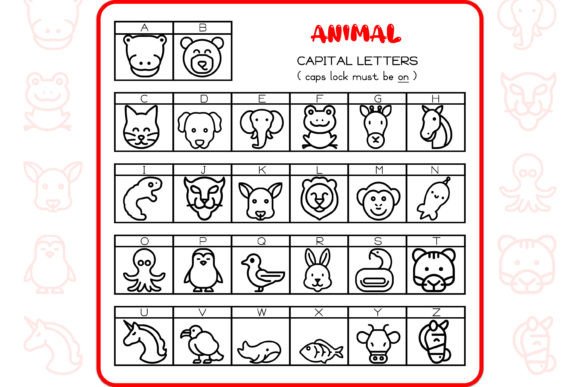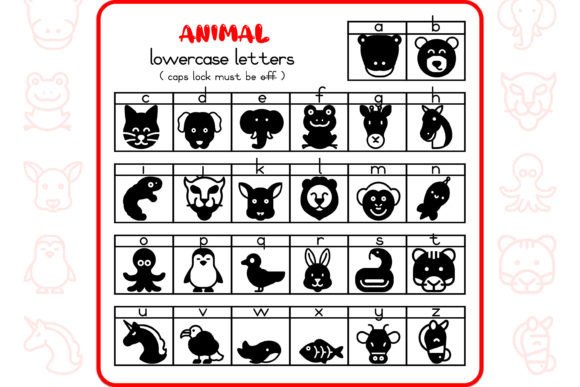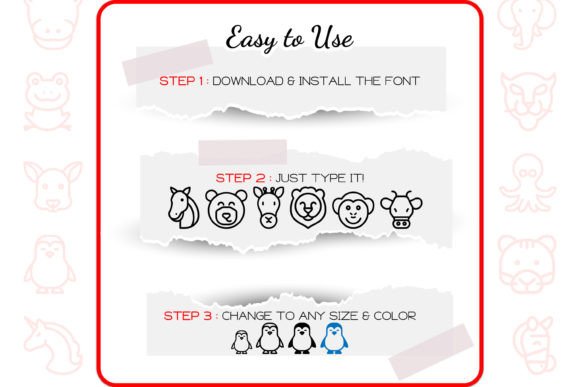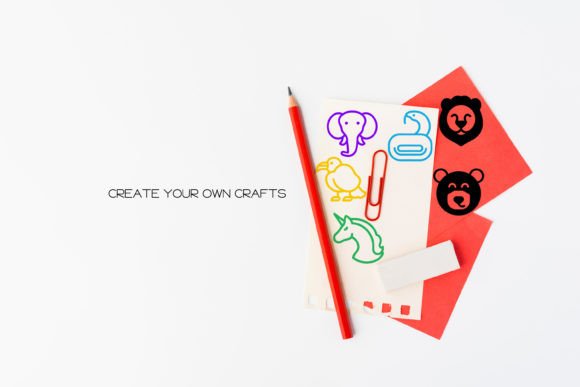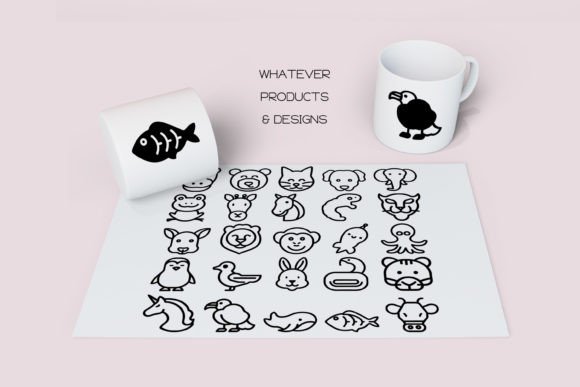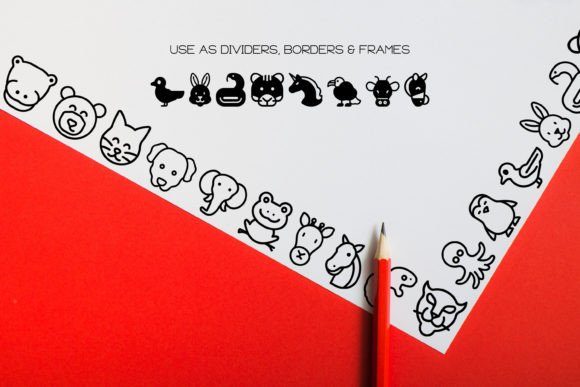
Unleash Your Creativity with the Animal Alphabet Font
Have you ever found yourself stuck on a creative project, staring at a blank page or screen, wondering how to bring your idea to life? We’ve all been there. But what if you had the perfect tool to spark your imagination and take your art to the next level? Enter the Animal Alphabet Font, a charming and versatile dingbat font that’s sure to delight designers and artists of all ages.
This adorable font features 52 unique animal icons, each representing a letter of the alphabet from A to Z. With two stylish options – Outline and Filled-Outline – you can add a touch of whimsy and personality to your designs, making them truly stand out from the crowd. Whether you’re a seasoned pro or just starting out, the Animal Alphabet Font is a valuable addition to your creative toolkit.
- Unique Character Set: The Animal Alphabet Font features a set of 26 uppercase and lowercase letters, each designed to resemble a specific animal, making it a fun and engaging font for children’s books, educational materials, and wildlife-themed projects.
Animal Alphabet Font Review
Overall, I’m quite impressed with the Animal Alphabet Font – it’s a unique and engaging typeface that’s sure to capture attention. Here’s what I like about it: ✨
- Fun and playful design: The font’s animal-inspired letters make it perfect for children’s books, educational materials, or any project that needs a lighthearted tone.
- High-quality glyphs: The letters are well-designed and easy to read, even at smaller font sizes.
- Excellent for hand-lettering: The font’s organic feel makes it a great choice for hand-lettering and calligraphy projects.
- Limited language support: The font may not be suitable for languages that require complex scripts or special characters.
- Lack of font variations: While the basic letters are well-designed, there’s no additional font weight or style options available.
Overall, I’d give the Animal Alphabet Font 4 out of 5 stars. It’s a great choice for projects that need a playful and engaging typeface, but it may not be the best option for more serious or formal designs.
The Animal Alphabet Font is commonly used in:
- Children’s educational materials and activities.
- Design projects that require a fun and playful font.
- Marketing and branding materials that need to stand out.
These are just a few examples of the many ways the Animal Alphabet Font can be used.